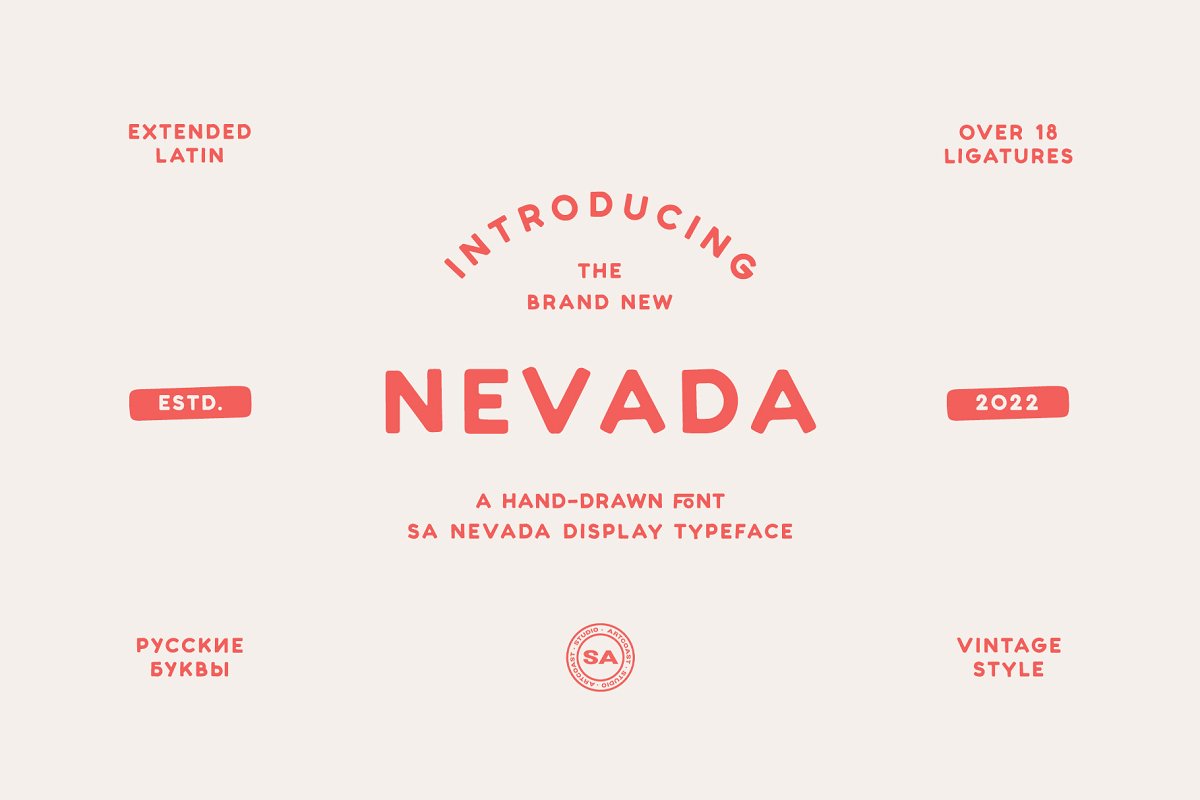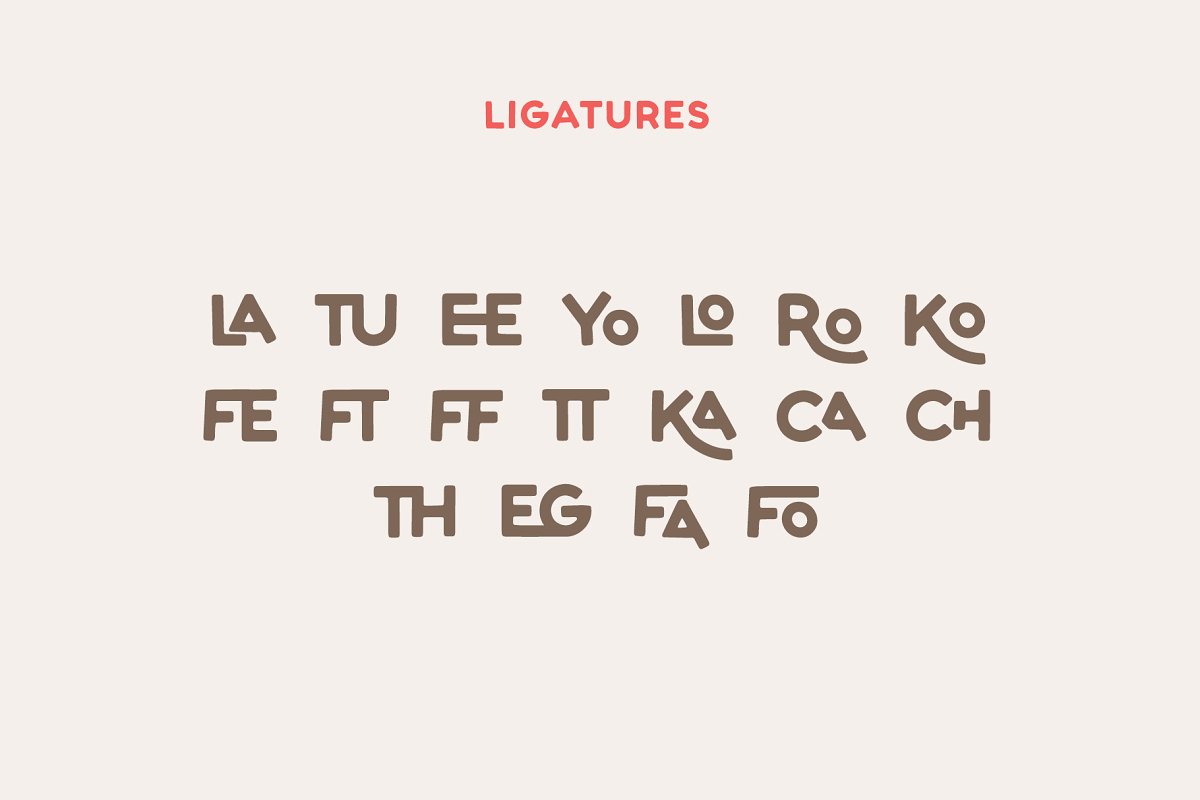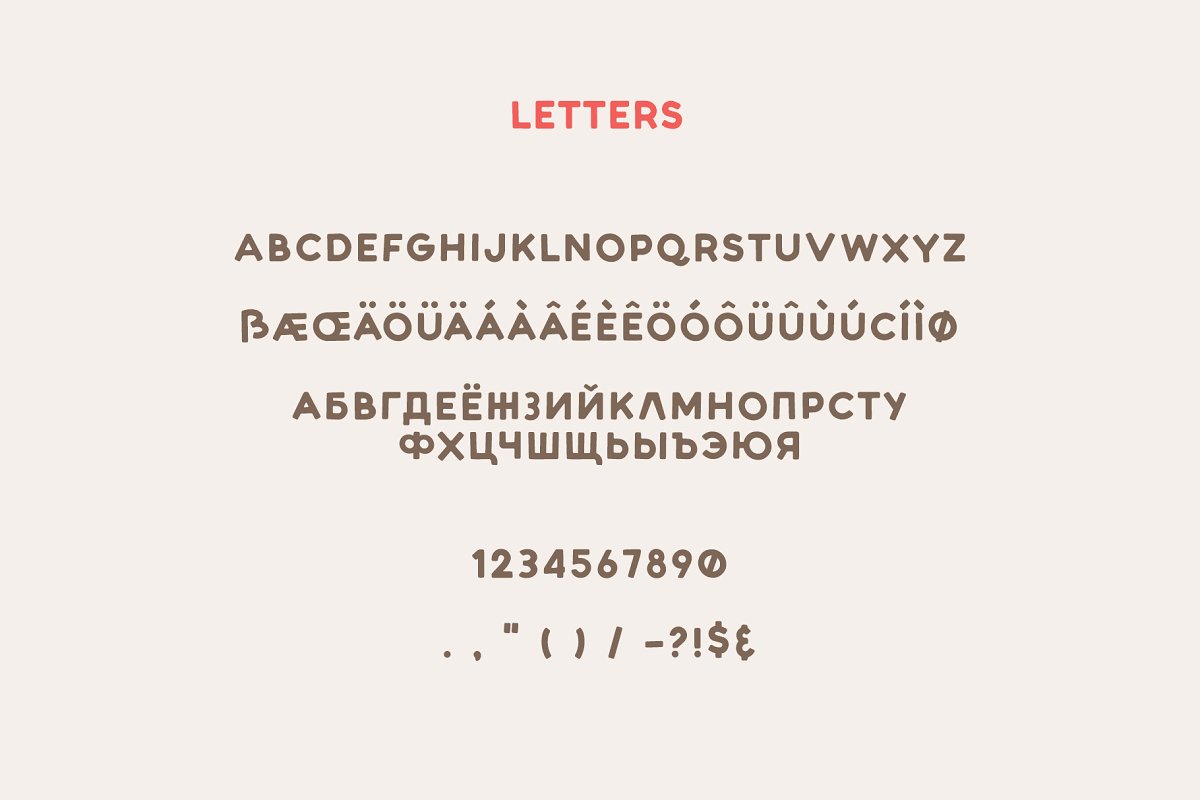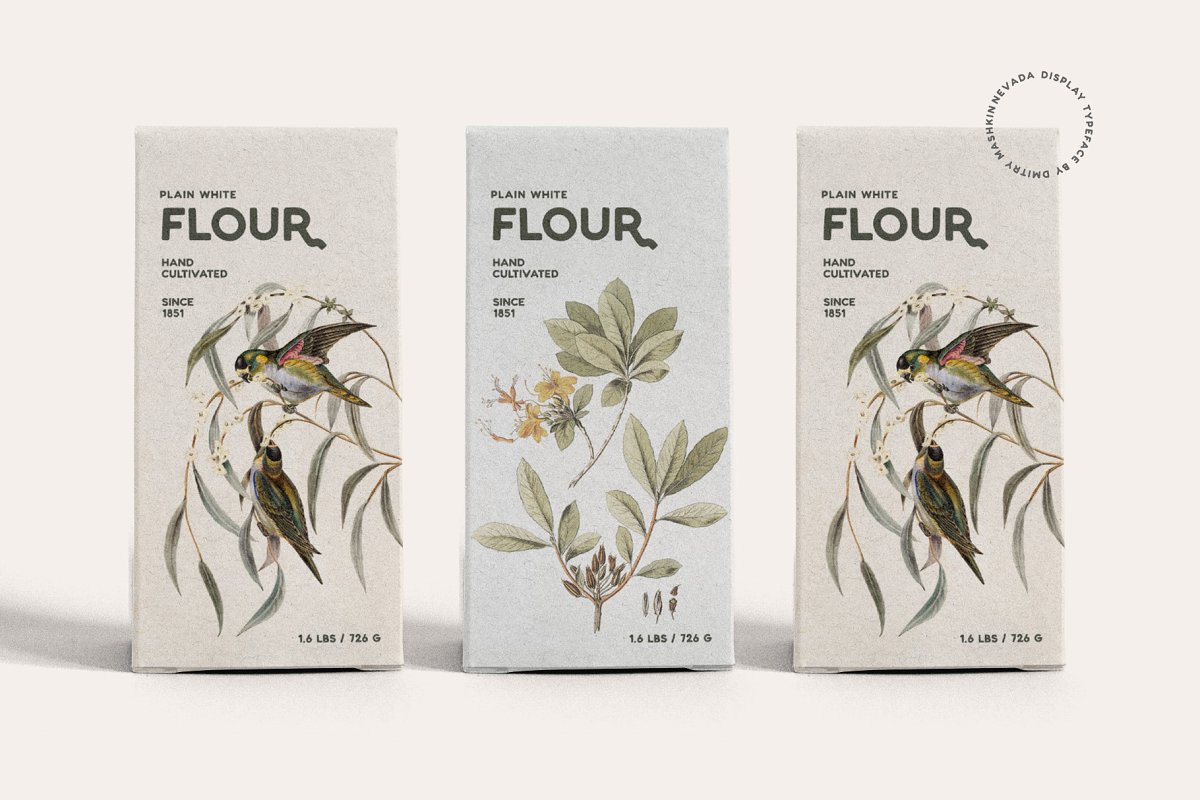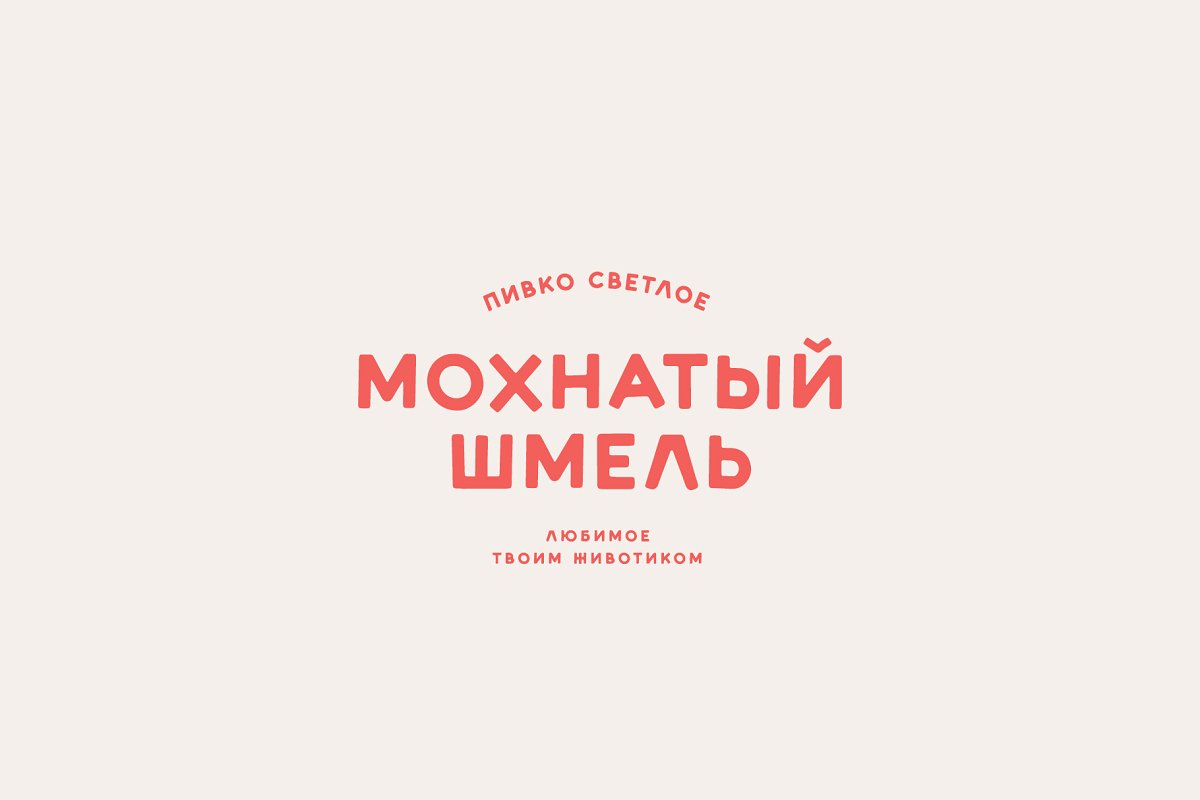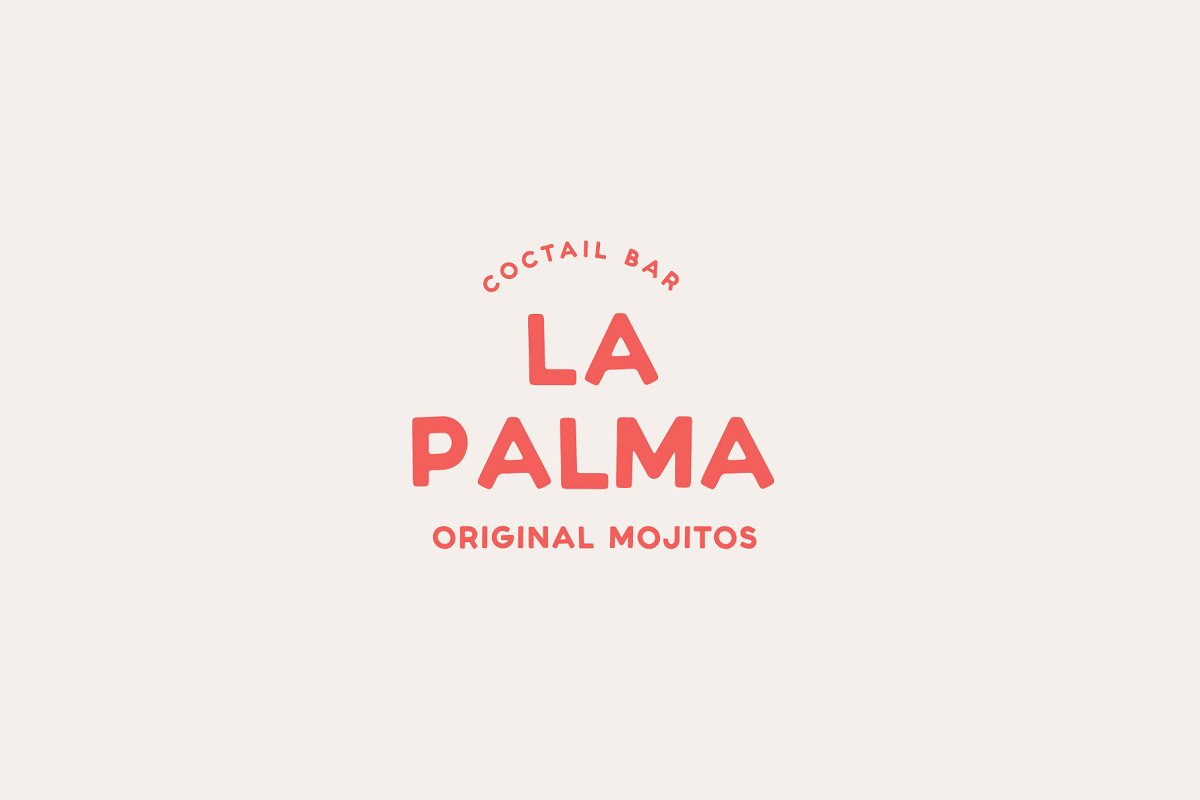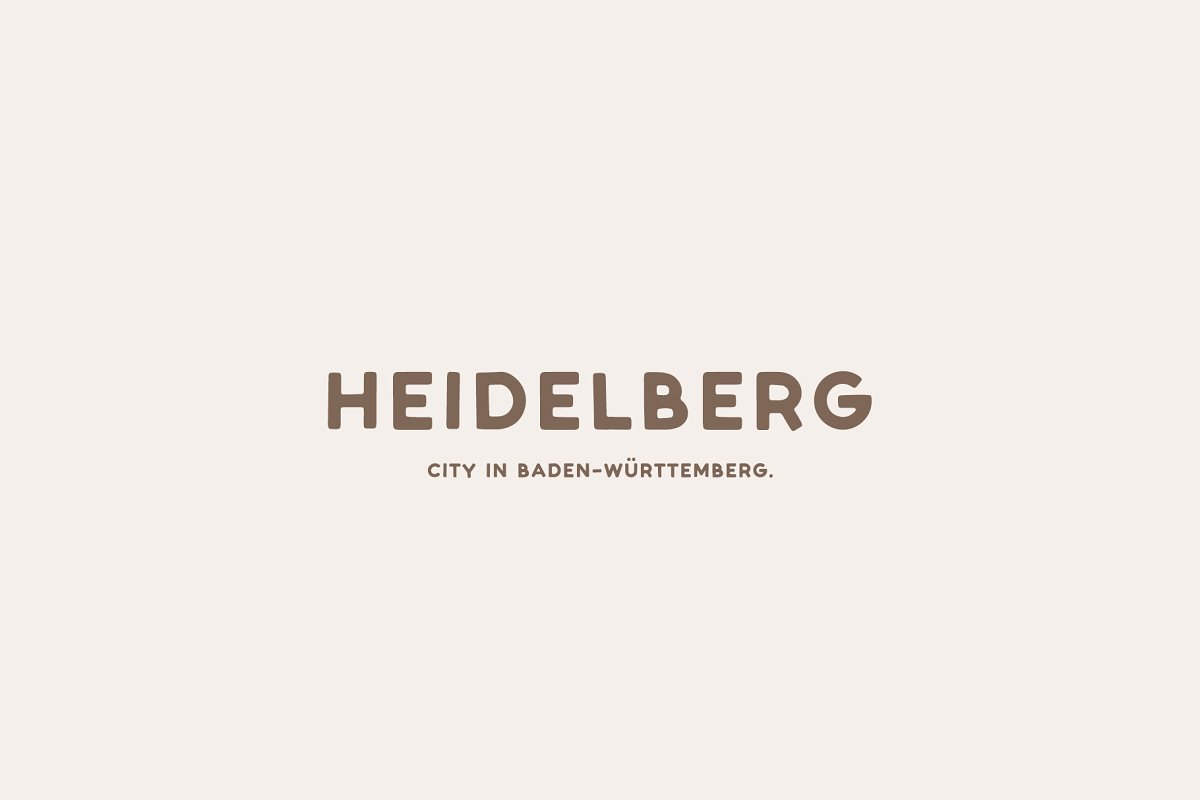
About the Nevada Retro Display Font
Introducing SA Nevada – a heart-warming hand drawn font that will inspired by old american logos.
Perfect for writing out uplifting quotes, wall art or greeting cards. It will also be there for you if you need to design some charming packaging or branding.
- Contextual alternates
- Ligatures
- Multilingual support